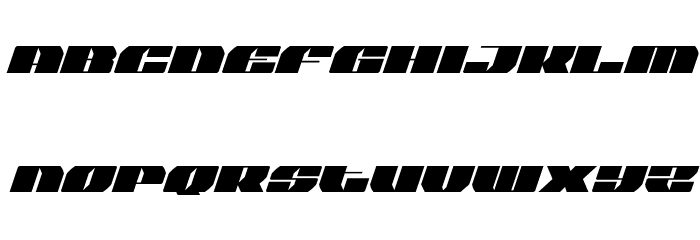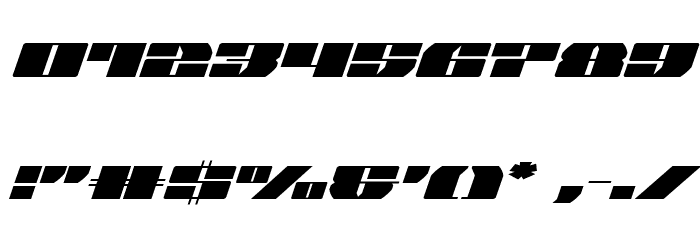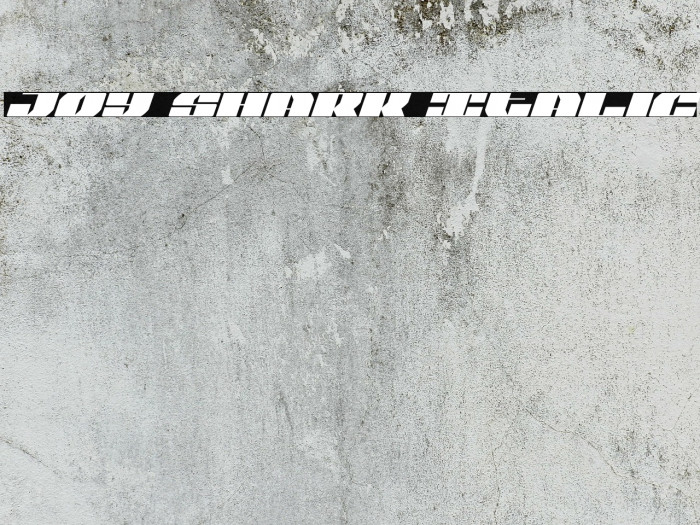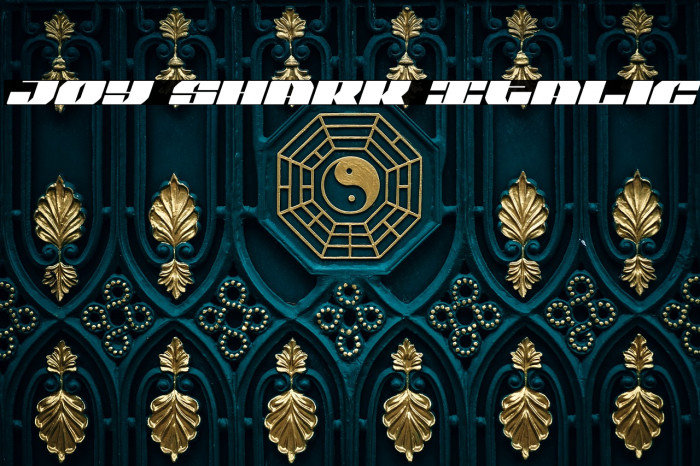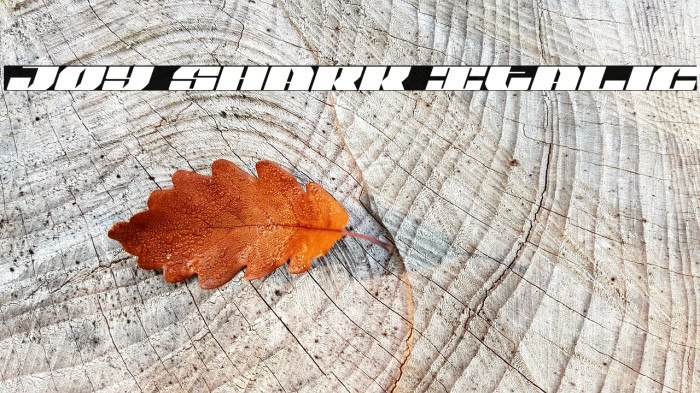
Joy Shark Italic Font
This font exhibits a bold, italicized style with a distinct geometric and angular design. The characters are wide and heavily stylized, featuring sharp edges and a futuristic appearance. The uppercase and lowercase letters maintain a consistent slant, enhancing the italic effect. Numbers and special characters are designed to match the bold and angular theme, providing a cohesive look across all elements. The font's unique style makes it stand out, ideal for projects requiring a modern and edgy aesthetic.
A bold, italicized font with a geometric and angular design.
- Proposed Projects: Ideal for use in sci-fi themed projects, video game titles, futuristic branding, and dynamic poster designs.
- Width: Expanded
- Overall Style: Futuristic, Modern